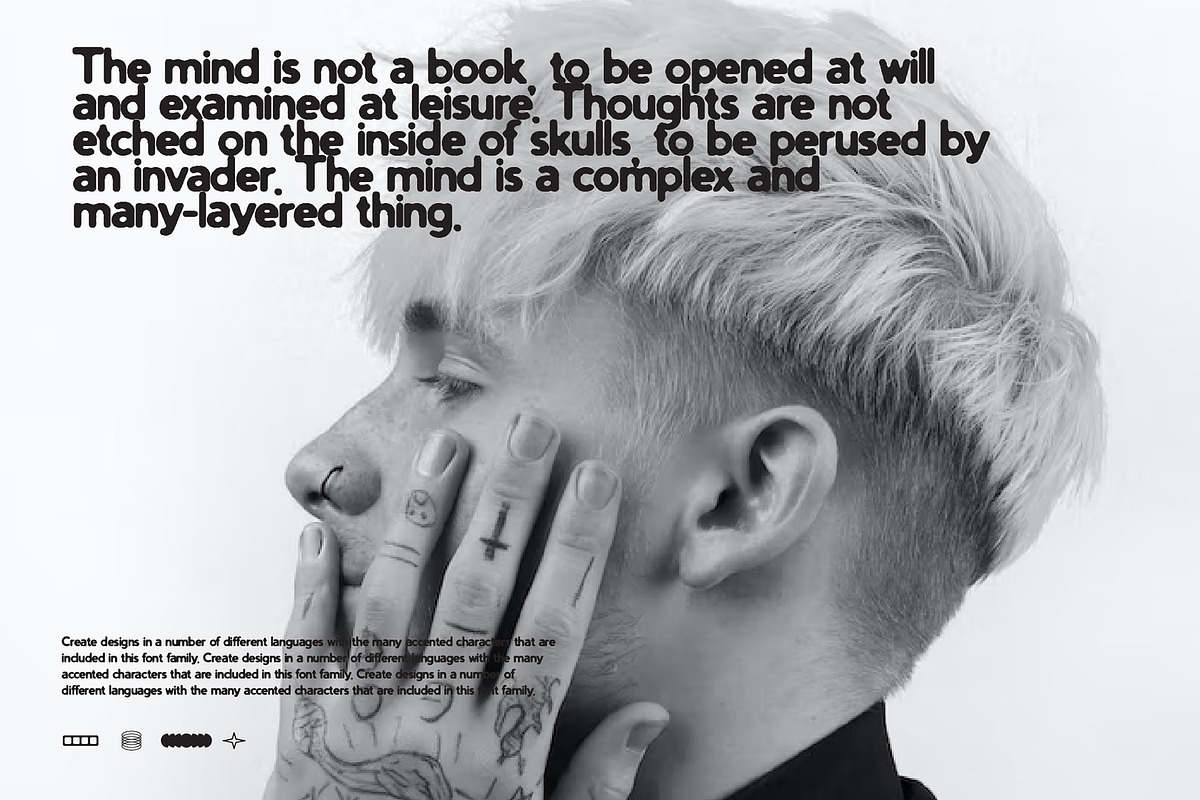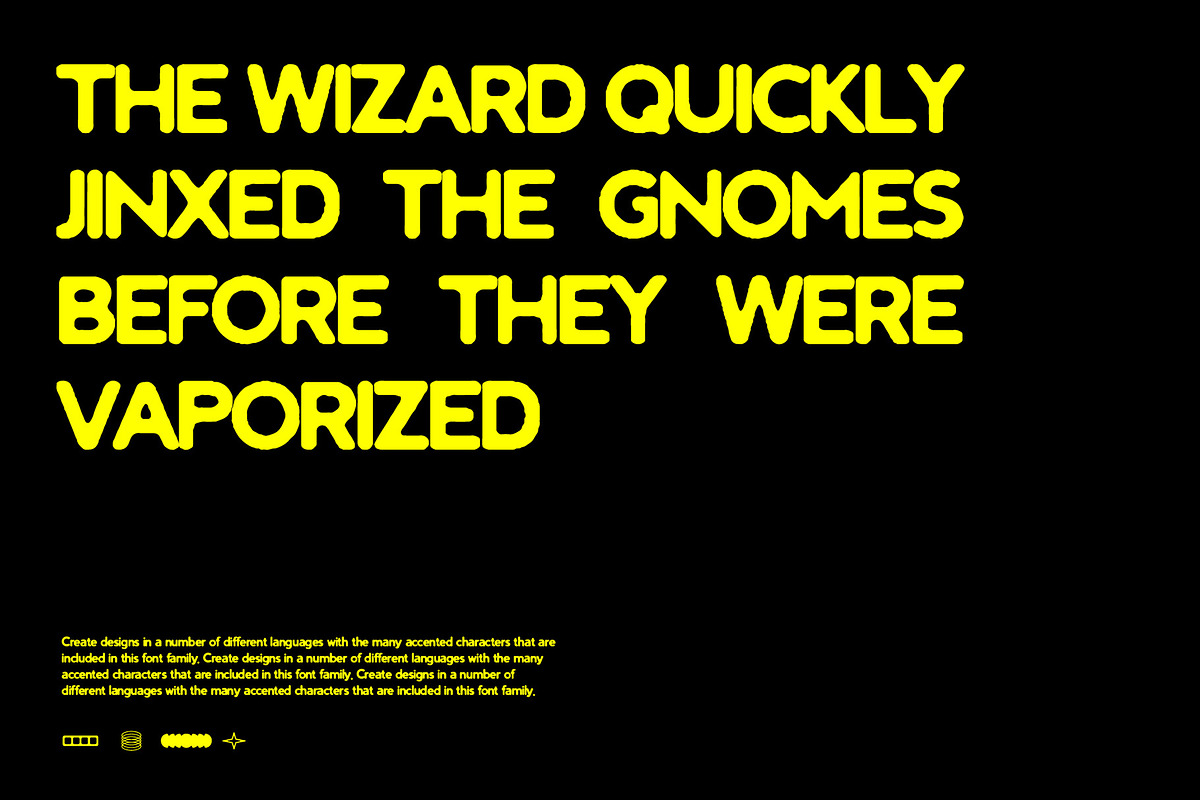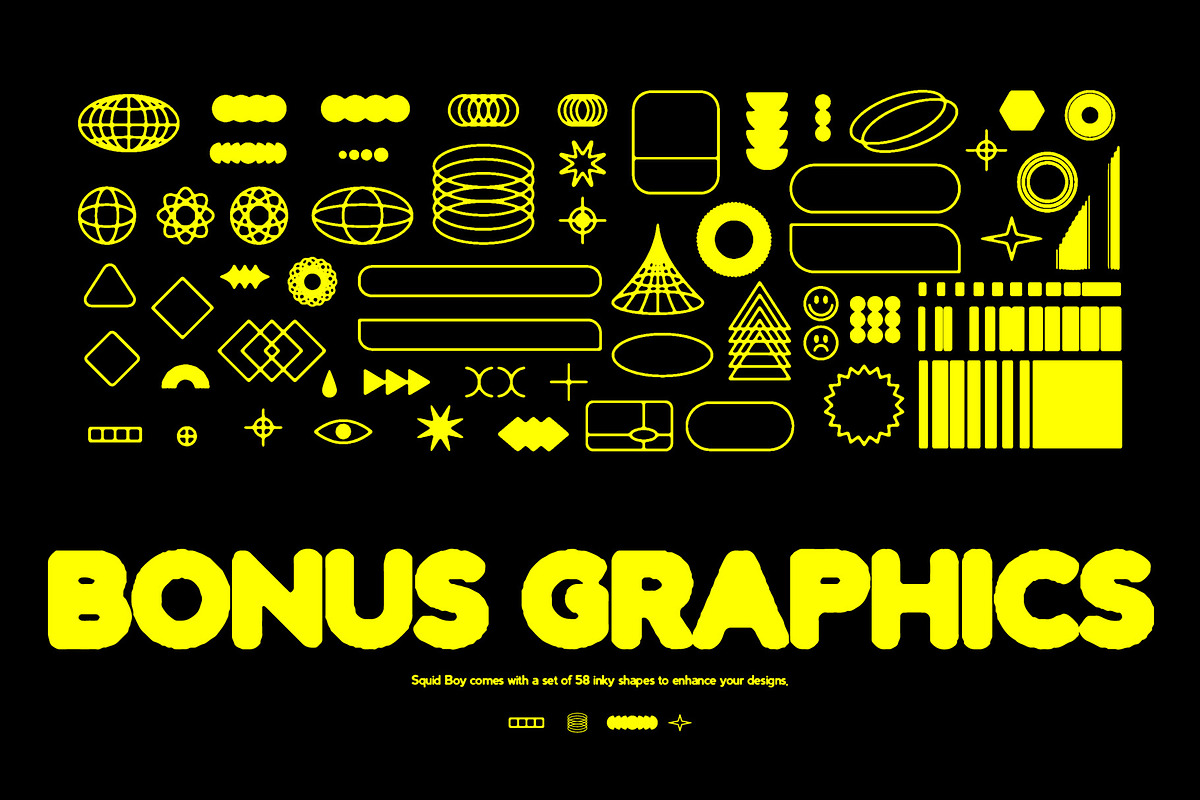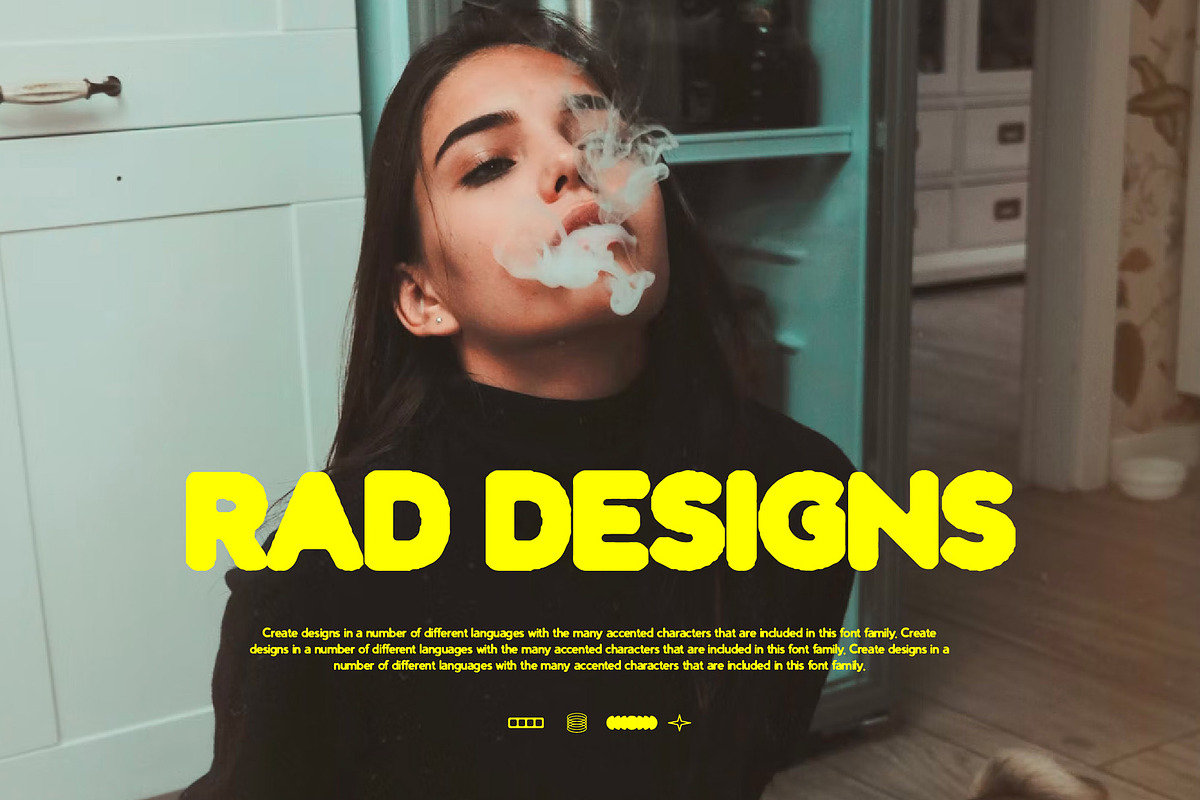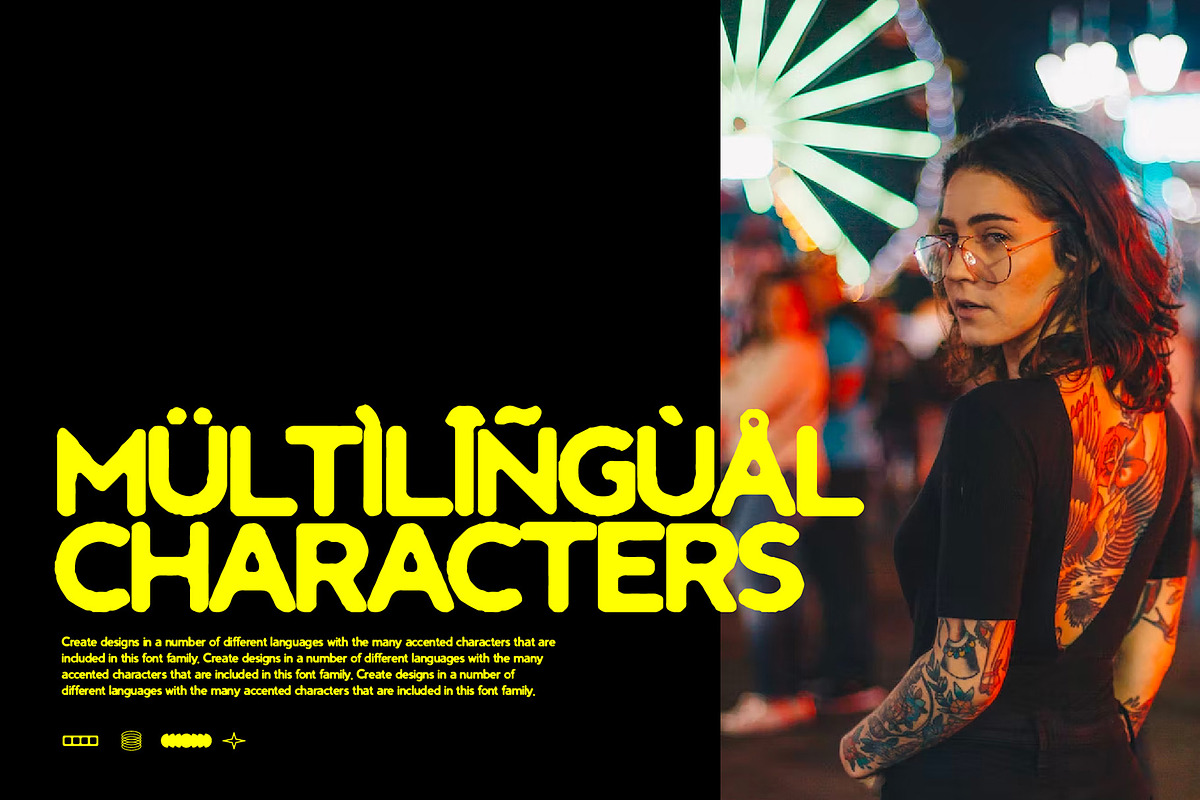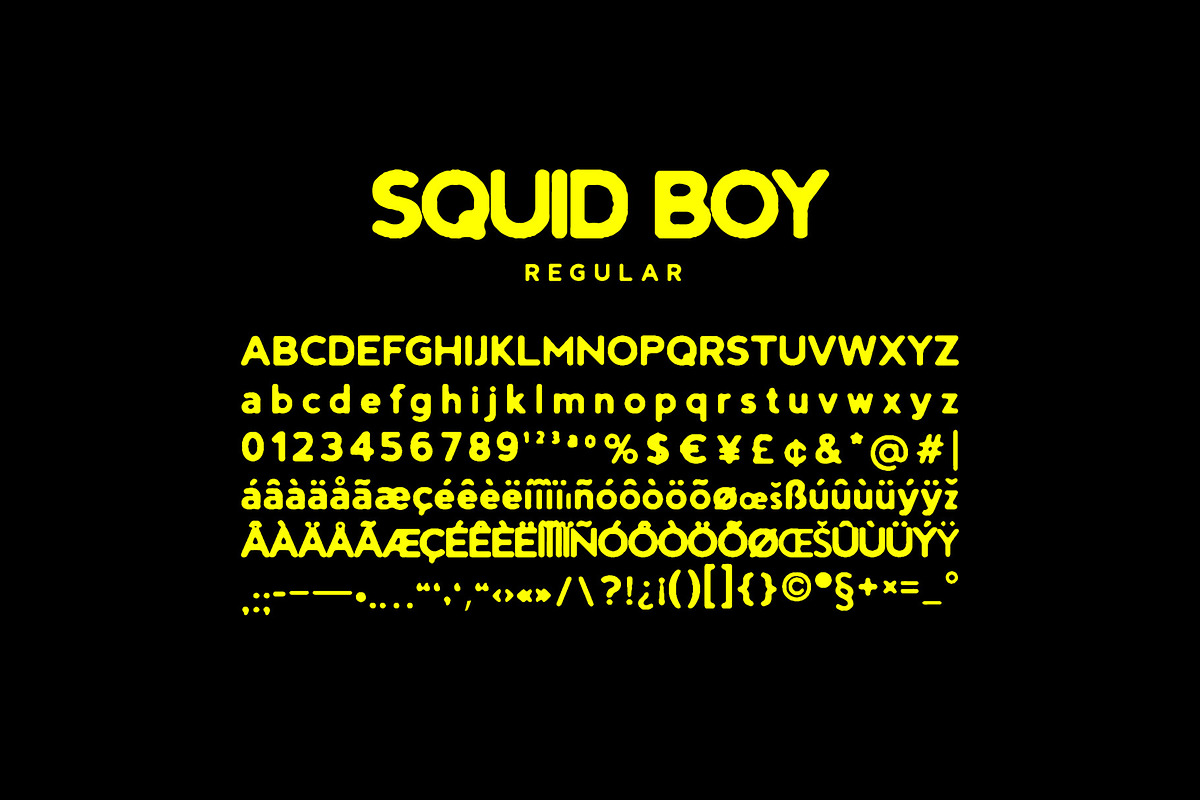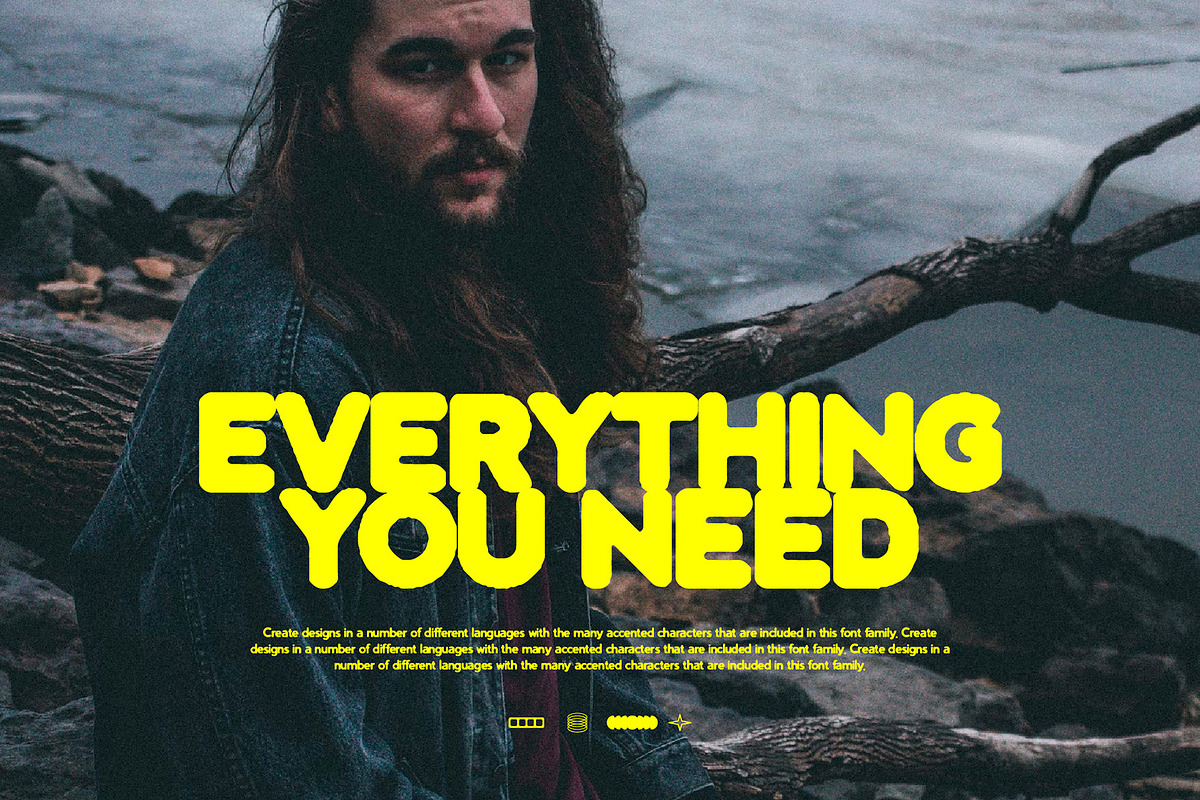
Squid Boy - Ink Bleed Sans Serif
Looking for bold, unique typography to make your project stand out from the crowd? Look no further than Squid Boy! This multi-weight, multi-lingual inky typeface offers the perfect combination of creativity and professionalism - allowing you to express yourself without sacrificing legibility or readability. Following the latest trends, each variation of Squid Boy - regular, bold, and thin - have been created to mimic an ink bleed of different sizes for that oh-so glitchy look. All in all, if you’re looking for an eye-catching font that makes a statement without overpowering your design - Squid Boy can help transform a creative idea into something truly special!
Not only do you get three font weights in various file types, you also get 58 bonus vector graphics to enhance your designs!